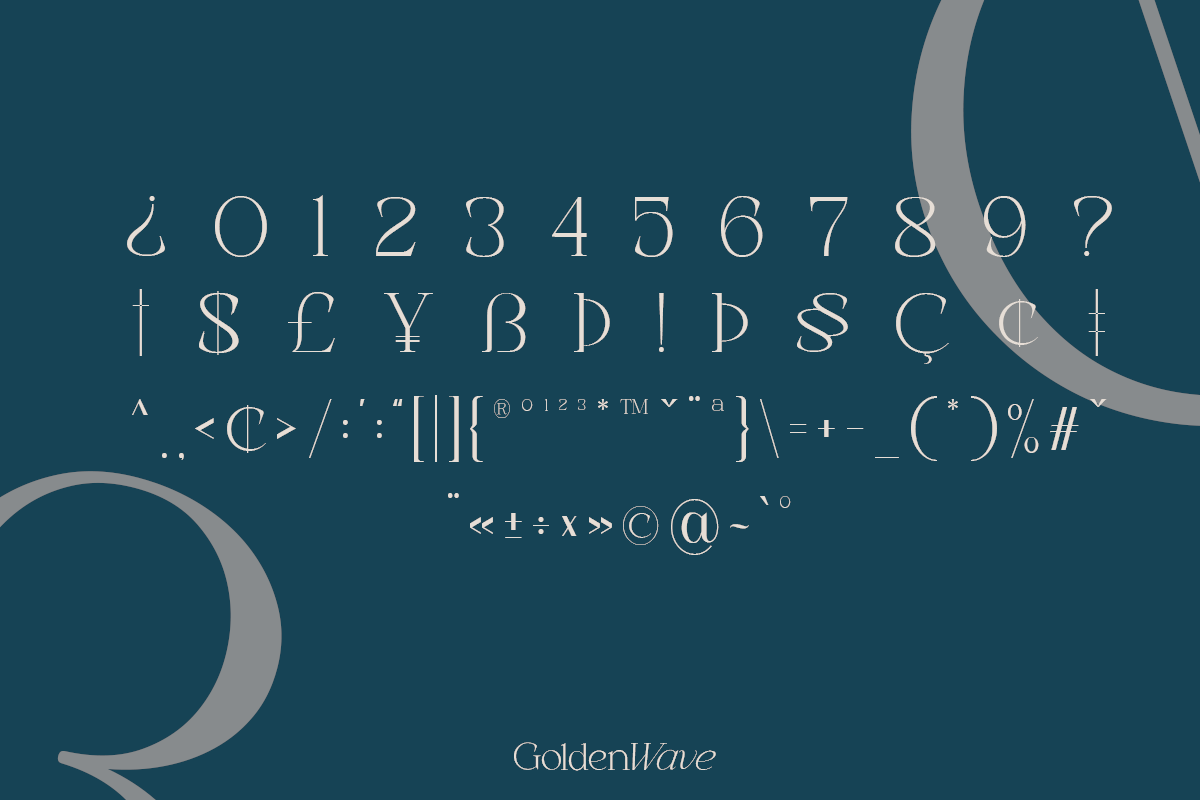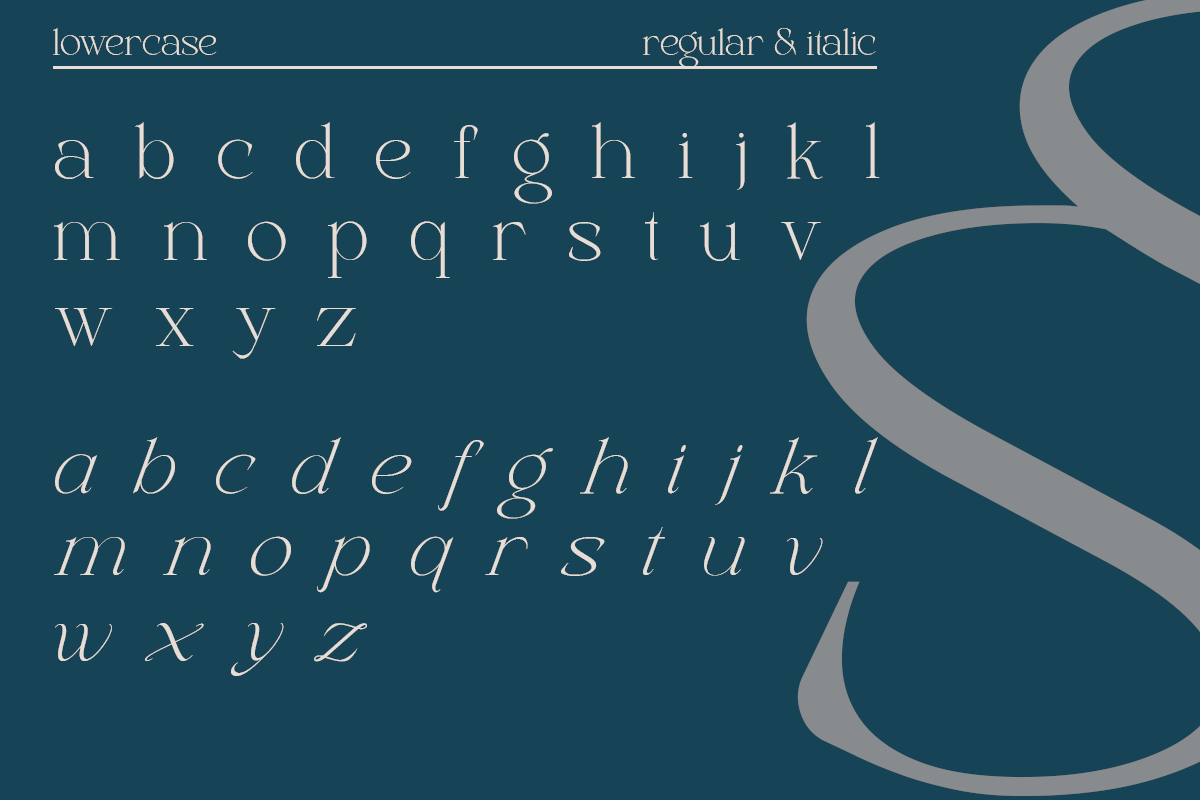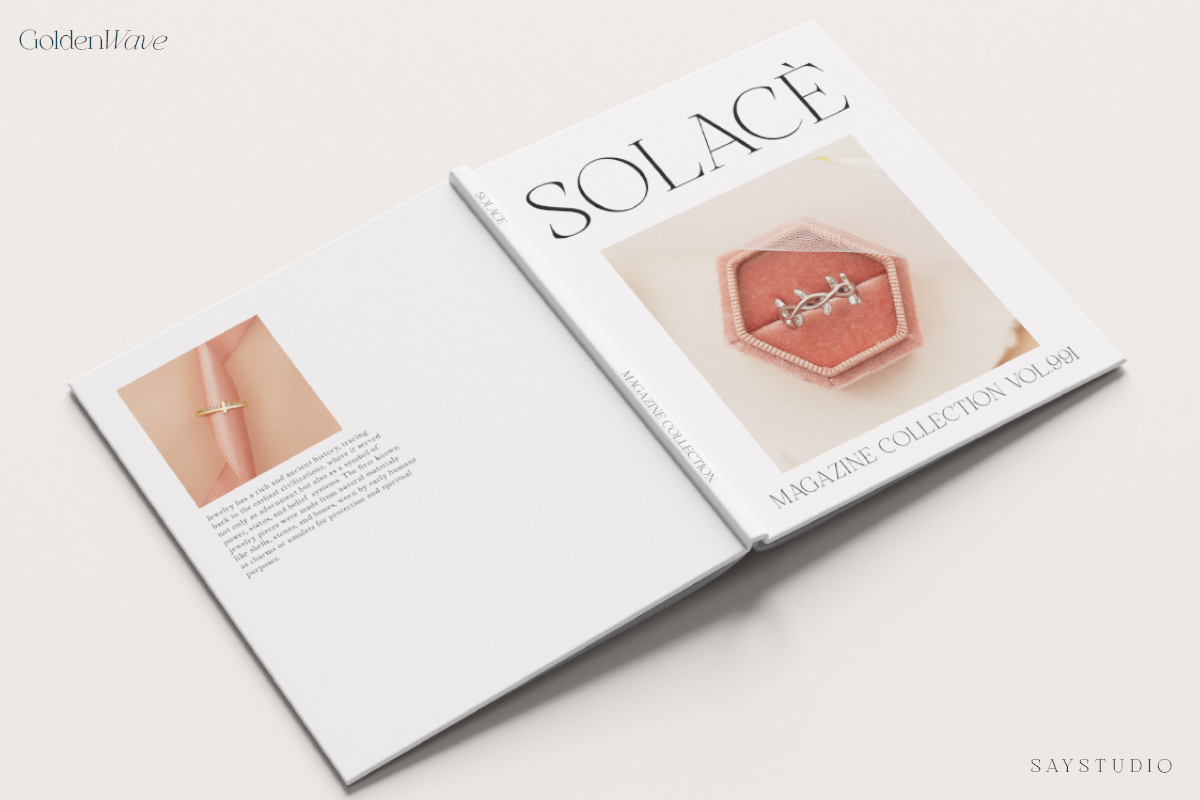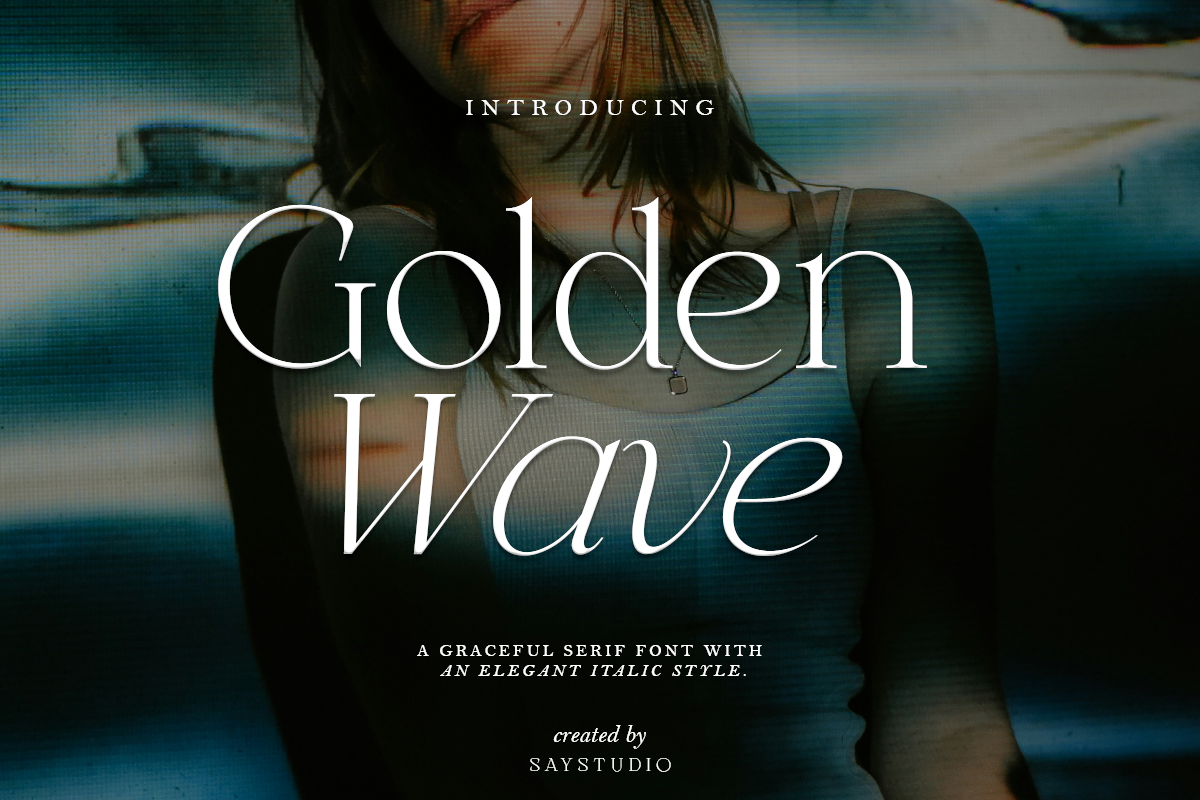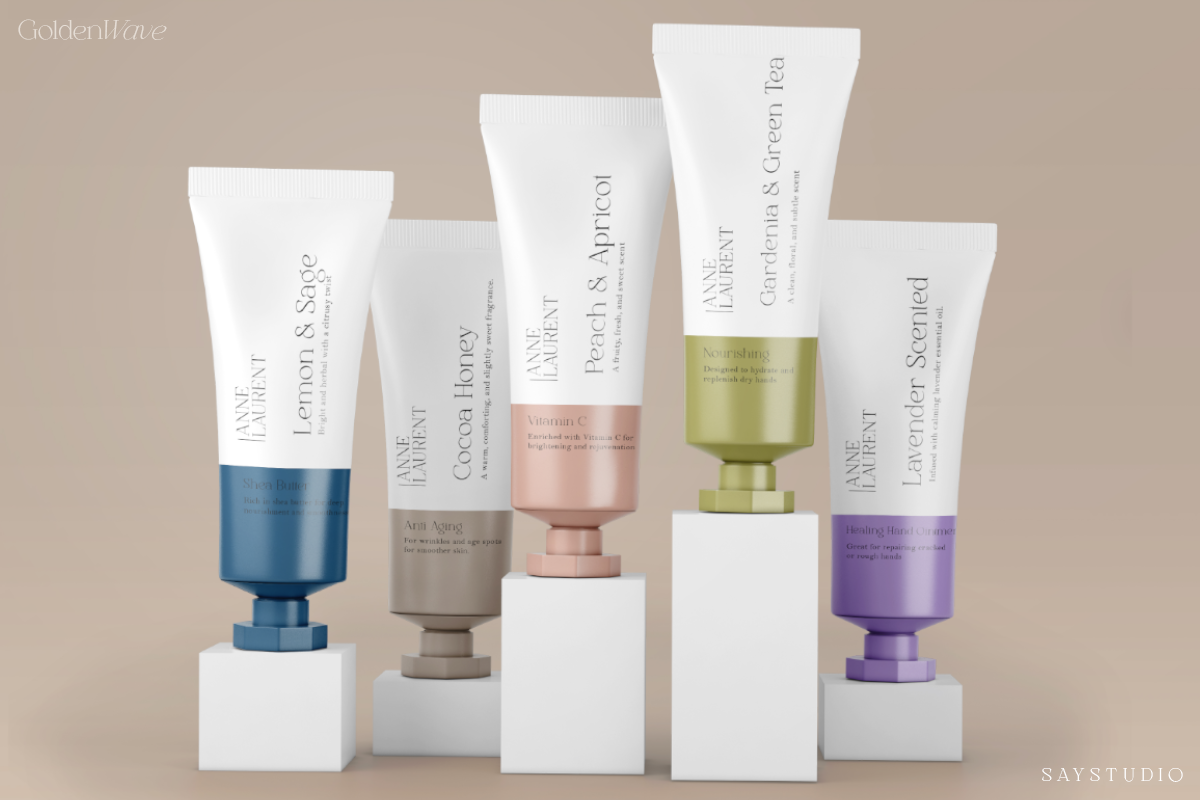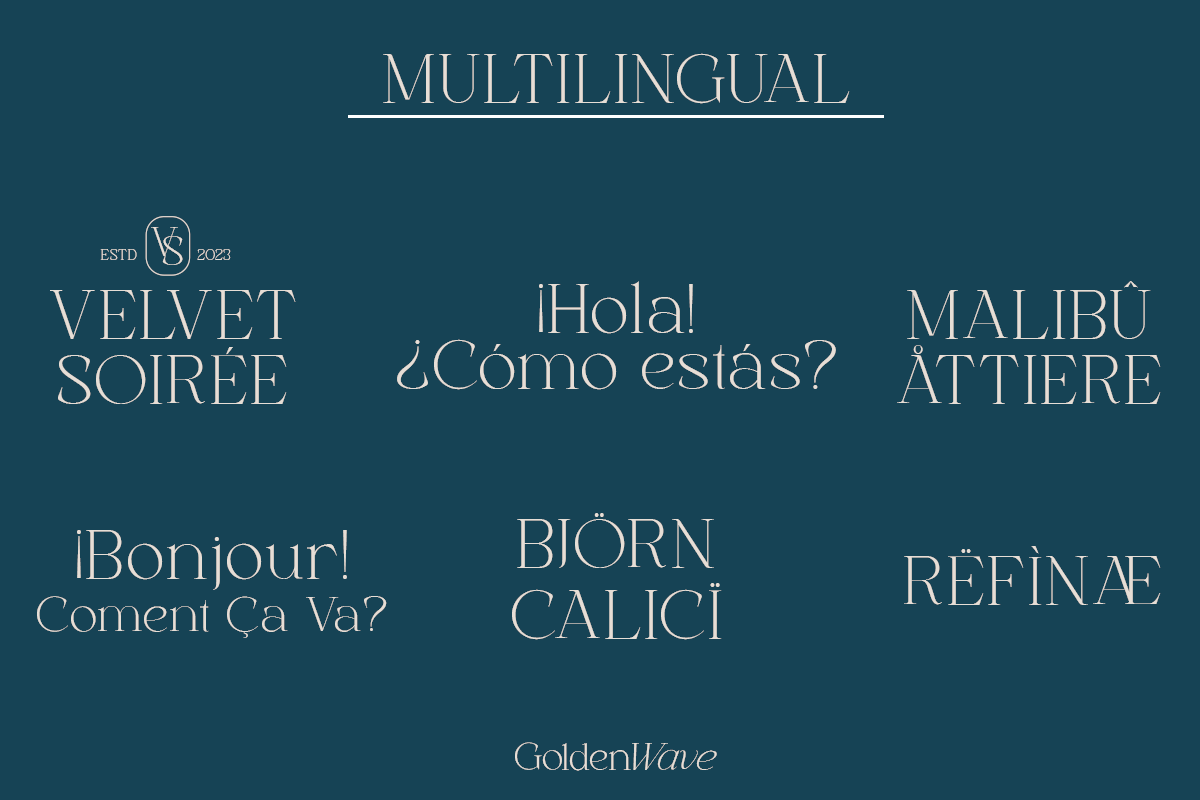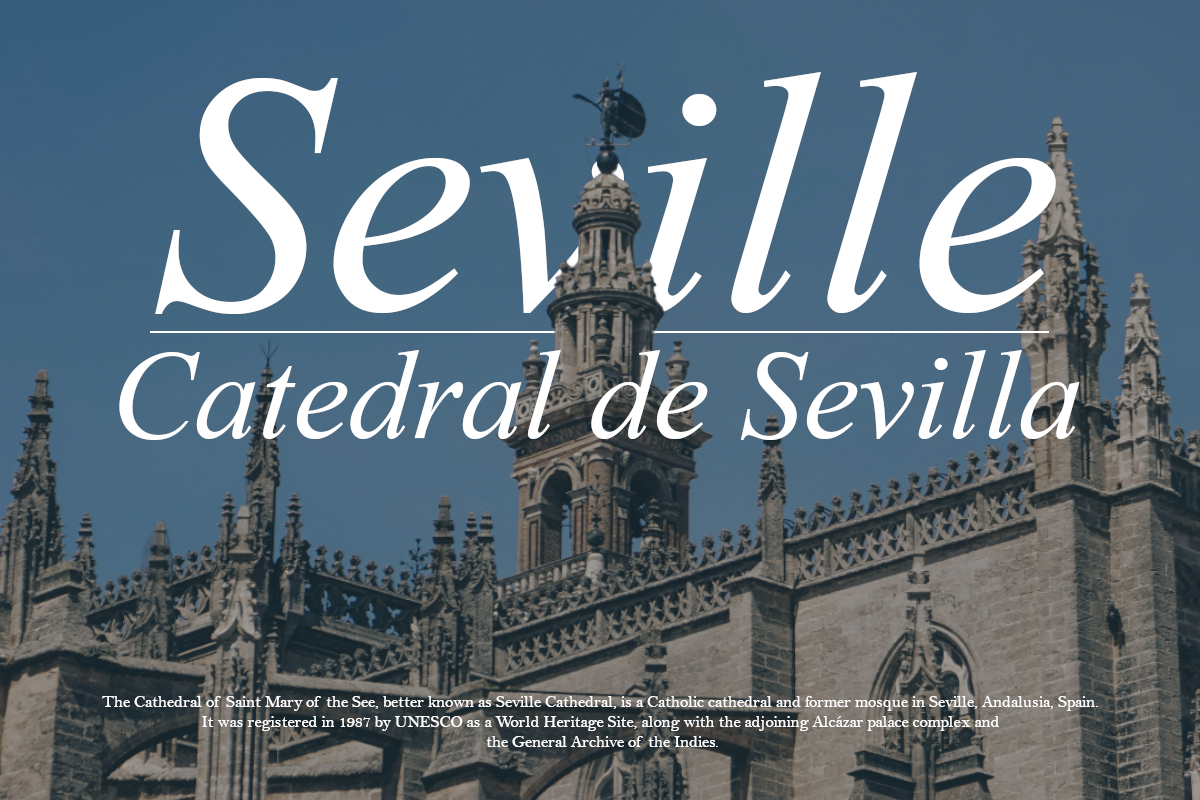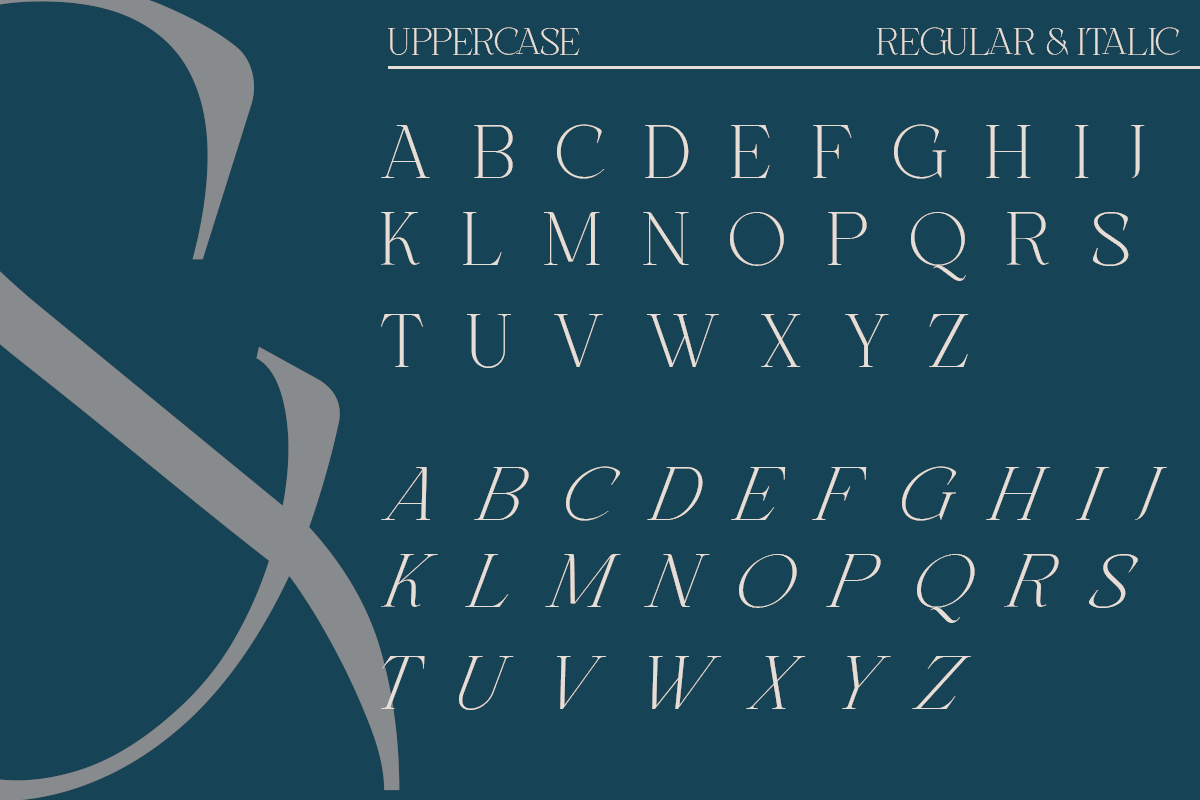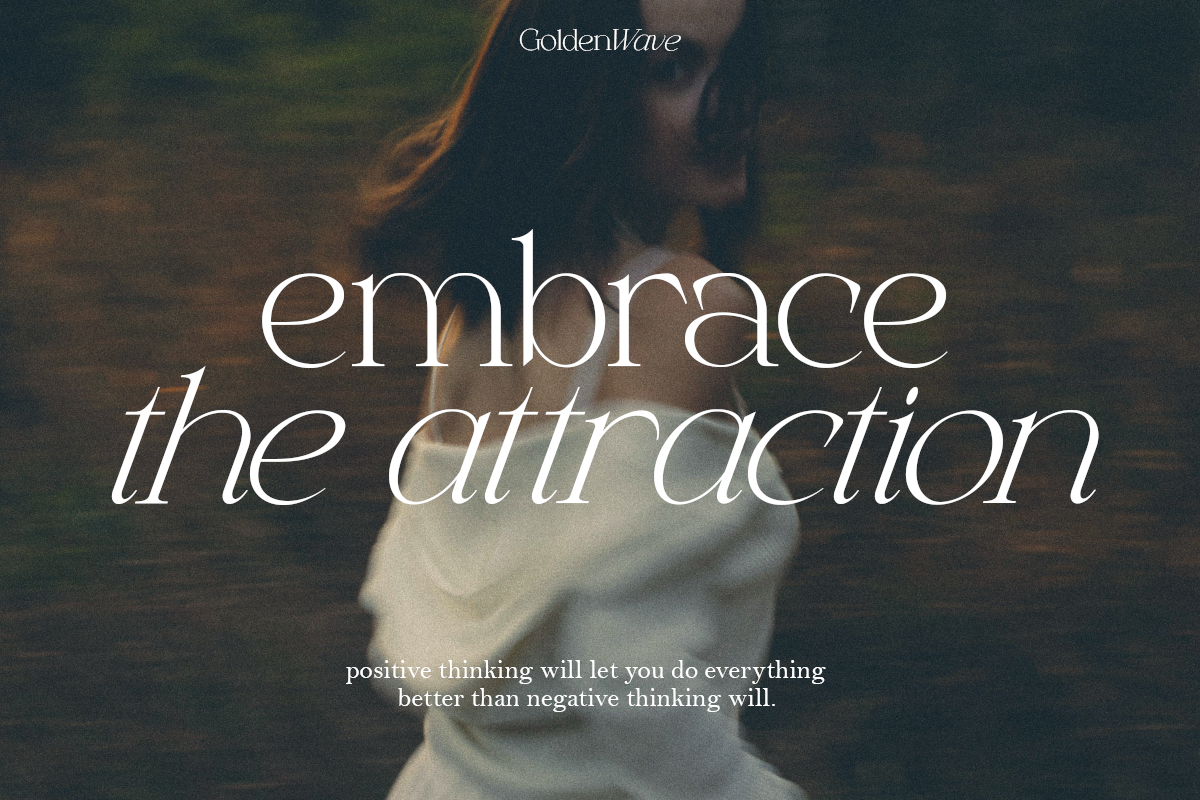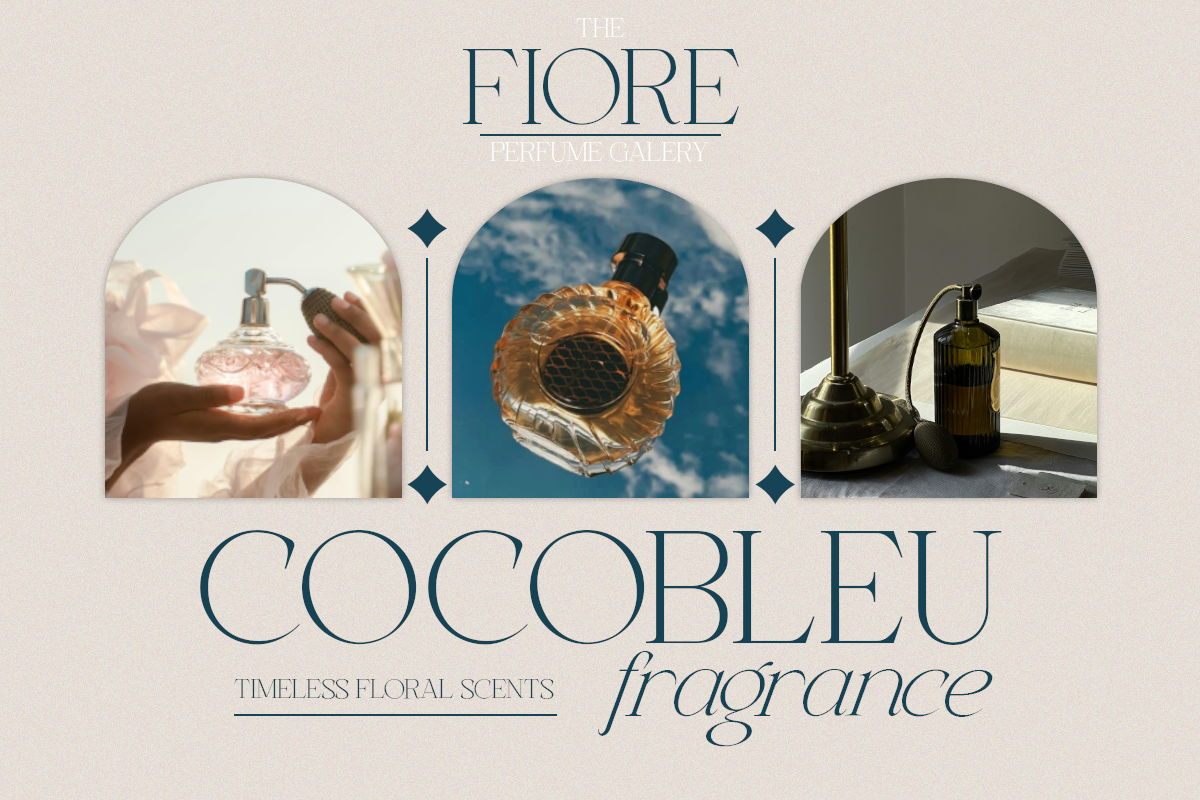
Golden Wave - Elegant Font
Golden Wave - An elegant Serif font with an italic style that will add a luxurious and classy impression. Designed specifically for retro and elegant projects, Golden Wave is perfect for posters, web designs, branding, illustrations, badges, and several other works.